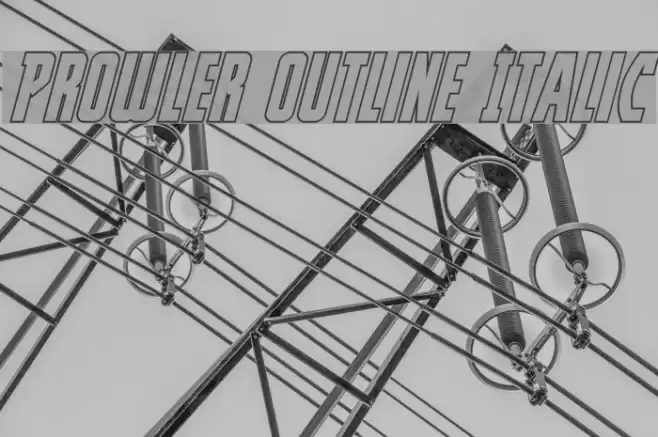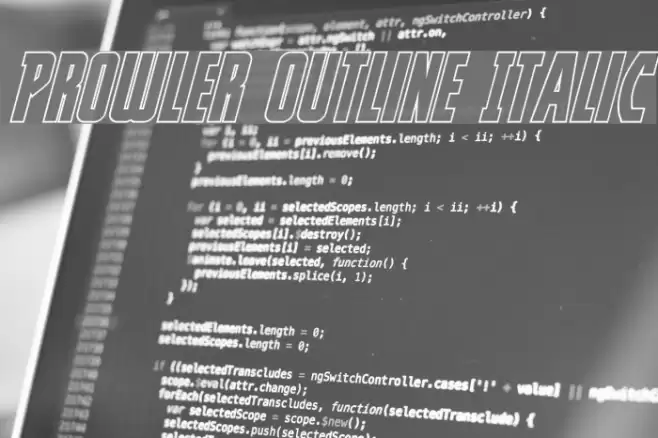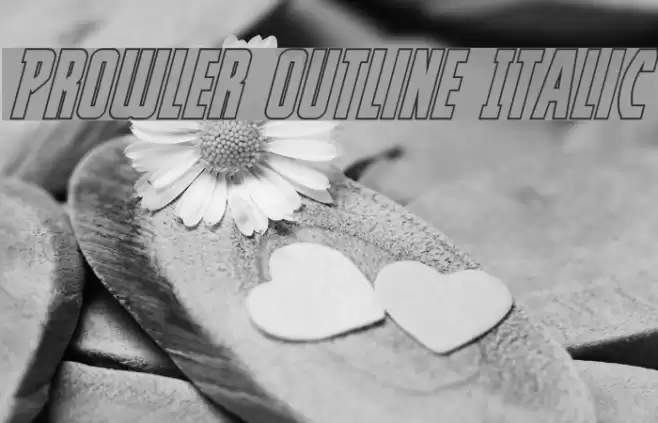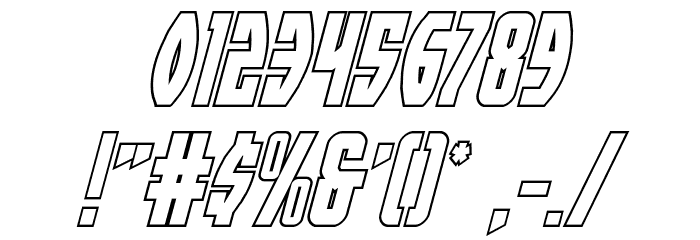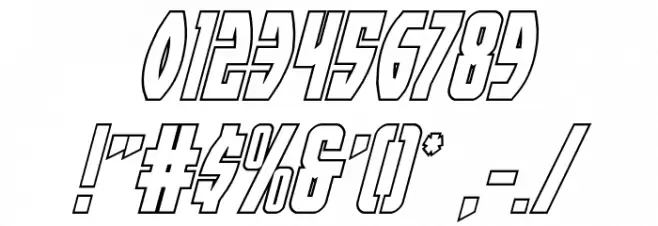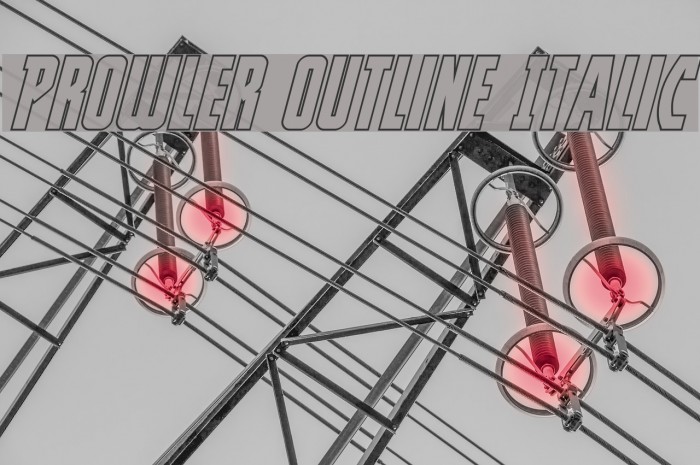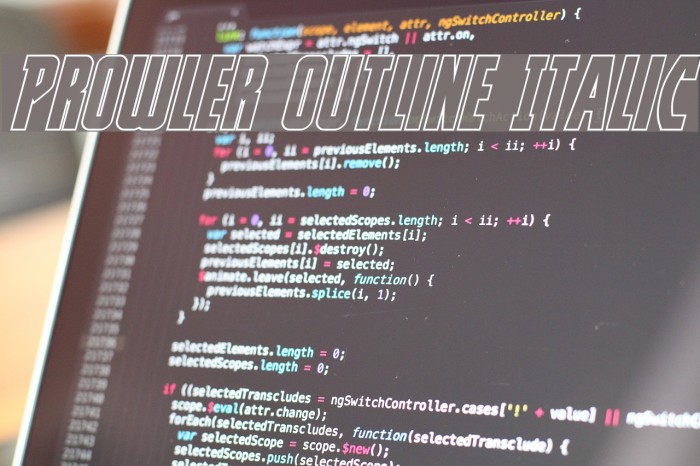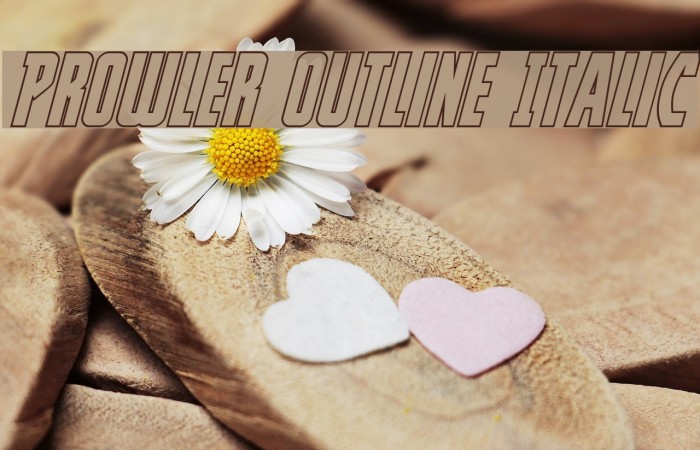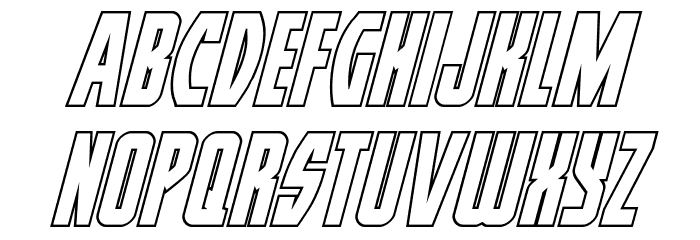
Prowler Outline Italic
This font features a bold, dynamic outline style with a distinct italic slant, giving it a sense of motion and energy. The uppercase letters are sharply angled, with clean lines and a geometric structure that emphasizes their boldness. The numbers and special characters maintain this angular, outlined aesthetic, ensuring consistency across all characters. The font's design is modern and eye-catching, making it suitable for projects that require a strong visual impact. Its outlined nature allows for creative use of color and layering in design projects.
A bold, italic outline font with a dynamic and modern style.
- Proposed Projects: Ideal for sports branding, posters, headlines, and any design needing a strong, energetic look.
- Use Case: Headlines, Logos, Posters